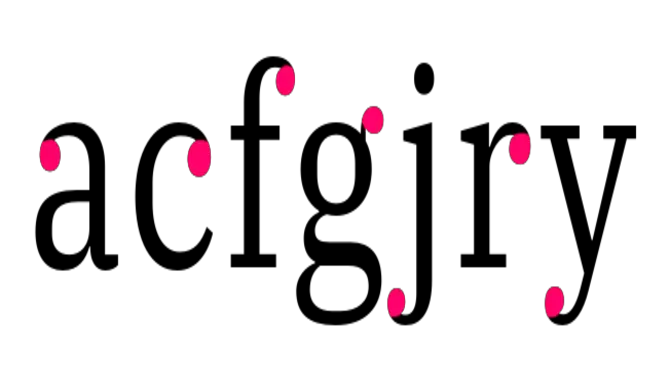
If you’re looking for a font with a bit of personality, one with dots on the ends of the letters might be just what you need. These fonts add a touch of fun and can make your text stand out. Many fonts have dots on the ends, so we’ve compiled a list of our favorites for you to check out. Some of our top picks include:
1. Dotted Font
2. Circle Dots Font
3. Bold Dots Font
4. Thin Dots Font
These fonts are all great choices for adding a bit of personality to your text. Whether you’re looking for something fun and playful or a bit more sophisticated, one of these fonts will surely fit the bill.
How Do I Create A Fonts With Dots On Ends?
If you want to add something extra to your fonts, try creating a font with dots on the ends! It’s a simple process that can be done in a few quick steps.
- Start by opening up your preferred design program. For this example, we’ll be using Adobe Photoshop.
- Create a new document and type out your text. For this example, we’ll just be using a simple character.
- We’ll use a round brush to create the dotted effect. Select the brush tool and choose a small, round brush from the options.
- Change the brush color to black and set the brush opacity to 100%.
- Now, click on the end of the character to add a small dot. Repeat this process for all the letters in your text.
And that’s it! You now have a font with dots on the ends. You can use this effect for any project, whether a website, a flyer, or a birthday card. Be creative and have fun!
What Are Some Fonts With Dots On The Ends?
Dotted fonts are a great way to add personality to your designs. They’re also perfect for creating a retro or vintage look. In this post, we’ve rounded up 30 of the best-dotted fonts you can use in your next project.
Dotted fonts can be used for a variety of purposes. They’re great for headlines, logos, and even body text. When used in moderation, they can add a fun and playful touch to your designs. Check out our list below if you’re looking for a dotted font. We’ve rounded up 30 of the best-dotted fonts you can use in your next project.
1.American Captain
American Captain is a bold and vintage-inspired font. It comes in two styles: regular and dotted. The dotted version is perfect for creating retro designs.
2.Blackout
Blackout is a sans-serif font with a unique dotted design. It’s perfect for headlines and logos.
3.Bubblegum Sans
Bubblegum Sans is a fun and playful font. It comes in two styles: regular and dotted. The dotted version is perfect for adding a touch of personality to your designs.
4.Circus
Circus is a fun and unique font. It comes in two styles: regular and dotted. The dotted version is perfect for headlines and logos.
5.Deco Type Naskh
Deco Type Naskh is a classic Arabic font. It comes in two styles: regular and dotted. The dotted version is perfect for adding a touch of personality to your designs.
6.Dumpling
Dumpling is a fun and playful font. It comes in two styles: regular and dotted. The dotted version is perfect for adding a touch of personality to your designs.
7.Elephant
The elephant is a bold and unique font. It comes in two styles: regular and dotted. The dotted version is perfect for headlines and logos.
8.Fade to Black
Fade to Black is a bold and unique font. It comes in two styles: regular and dotted. The dotted version is perfect for headlines and logos.
9.Fireflies
Fireflies is a fun and playful font. It comes in two styles: regular and dotted. The dotted version is perfect for adding a touch of personality to your designs.
10.Gagarin
Gagarin is a bold and unique font. It comes in two styles: regular and dotted. The dotted version is perfect for headlines and logos.
Why Do Some Fonts Have Dots On The Ends?
You’re not alone if you’ve ever wondered about the tiny dots you sometimes see on the ends of letters in certain fonts. These dots are called terminal marks, which indicate the end of a word or phrase.
While terminal marks are most commonly seen in serif fonts, they can also be found in sans serif and script fonts. Sometimes, the dots may be replaced with other shapes, such as diamonds or triangles. So
Why do some fonts have these marks and others don’t?
There are a few reasons. First, they can help create a sense of balance and rhythm in a line of text. Second, they can help to distinguish certain letters from one another. For example, five terminal dots can help distinguish the word from the f. In the word, the terminal dot can help distinguish it from the f.
Third, terminal marks can help to add a bit of personality to a font. Depending on their placement and design, they can make a font look more sophisticated or playful.
Finally, terminal marks can be used to trademark a font. If you see a font with terminal marks, the font’s designer has likely applied for a trademark on the design. So there you have it! You’ll know why the next time you see a font with dots on the ends of the letters.
In short, fonts with dots on the ends are typically used for formal documents, while regular fonts are more commonly used for casual documents. Remember this the next time you choose a font for your next project. Hopefully, you are clear now. If you still have any questions, feel free to comment below.